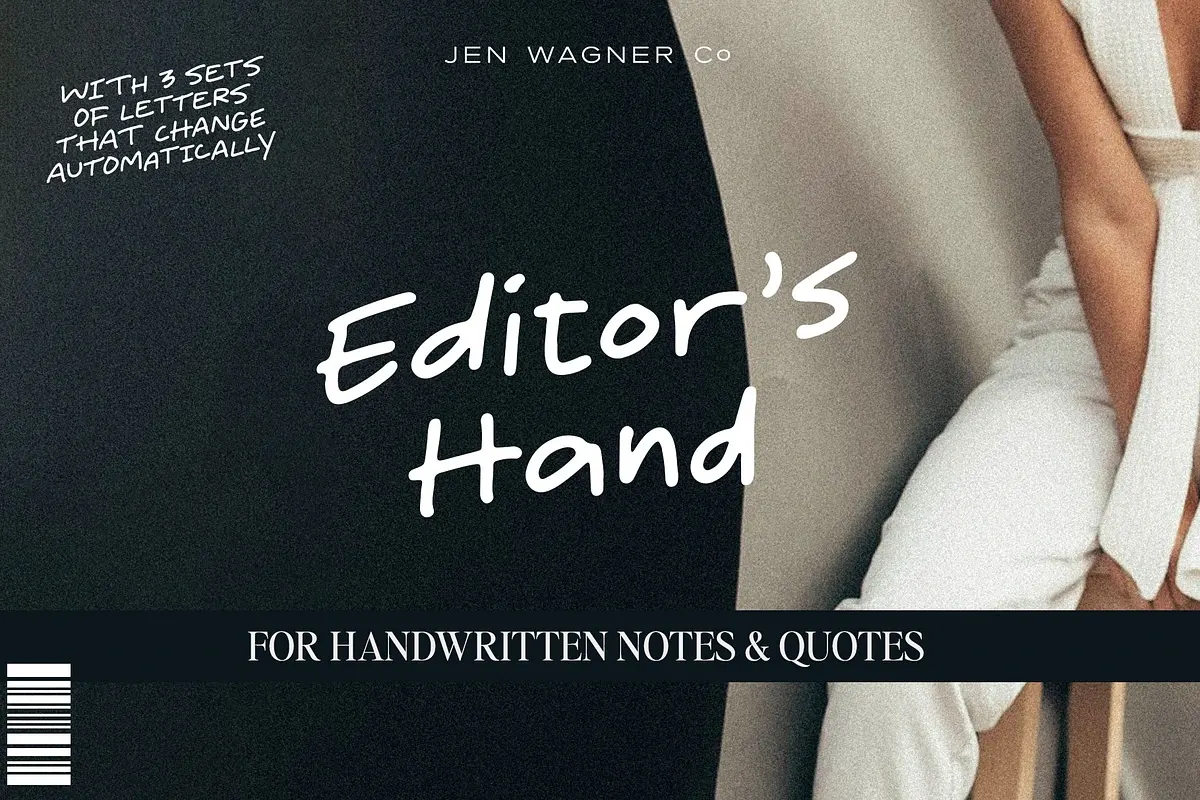
Editor's Hand Font Free Download is a casual handwritten typeface that captures the natural, personal feel of jotting down notes or marking up edits. With its relaxed strokes and editorial charm, this font is perfect for quotes, journal designs, planners, blog graphics, and creative branding that needs an authentic handwritten touch.
Designed to feel like real handwriting—clean, informal, and legible—Editor’s Hand includes uppercase and lowercase letters, numerals, punctuation, and subtle irregularities that make your text feel personal and expressive.
Whether you're adding character to a layout or looking to humanize your message, Editor's Hand Font Free Download is a great fit for creative and lifestyle projects. You can use it freely in personal or demo work, but don’t forget to purchase the correct license for commercial use. Add warmth and relatability to your designs with this handwritten notes & quotes font.